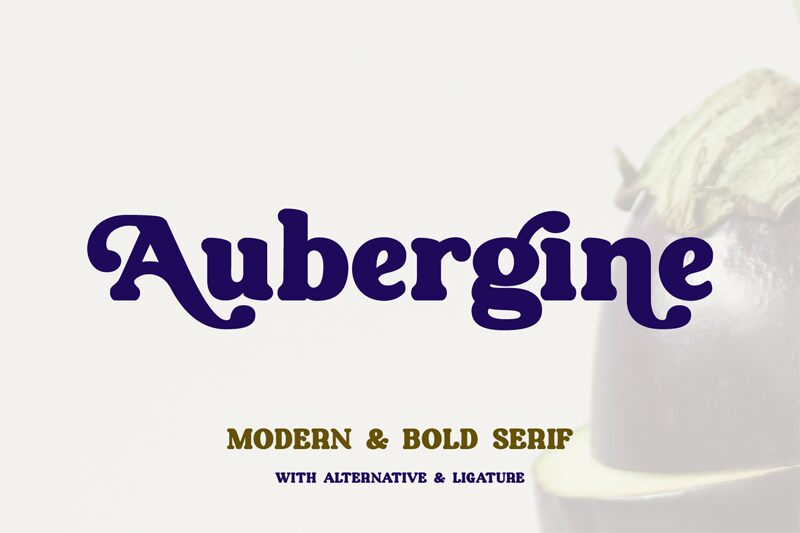
Aubergine, designed by Farida Kurniawan, is a bold serif font that adds a sophisticated touch to any project. Perfect for modern logos and branding projects, this font will add an elegant and timeless feel. It's also great for magazine covers, posters and social media graphics.